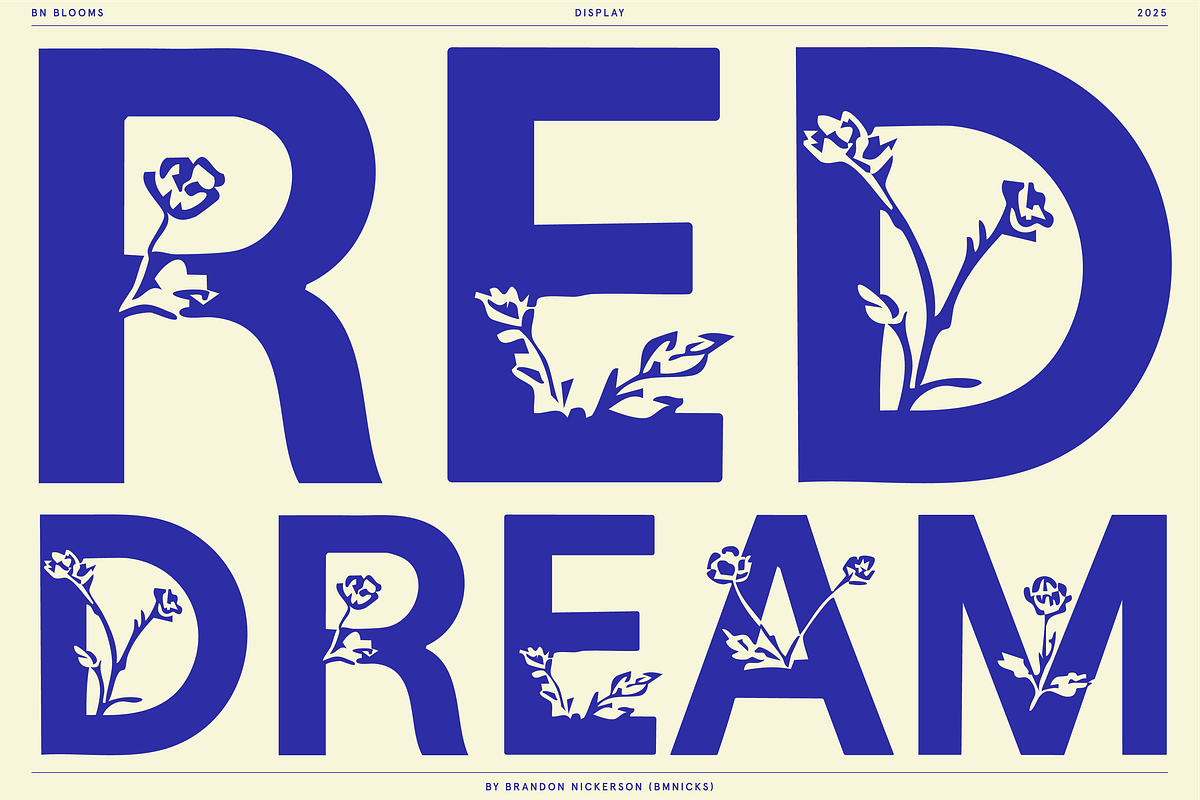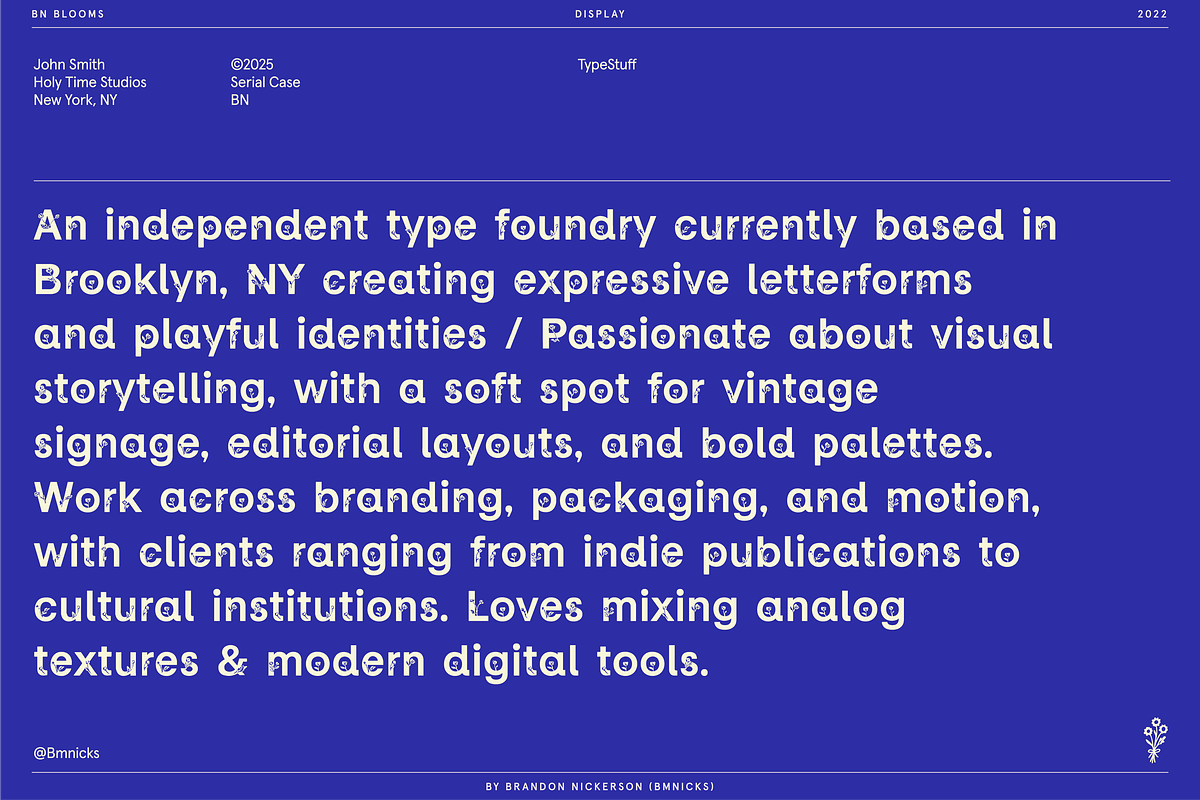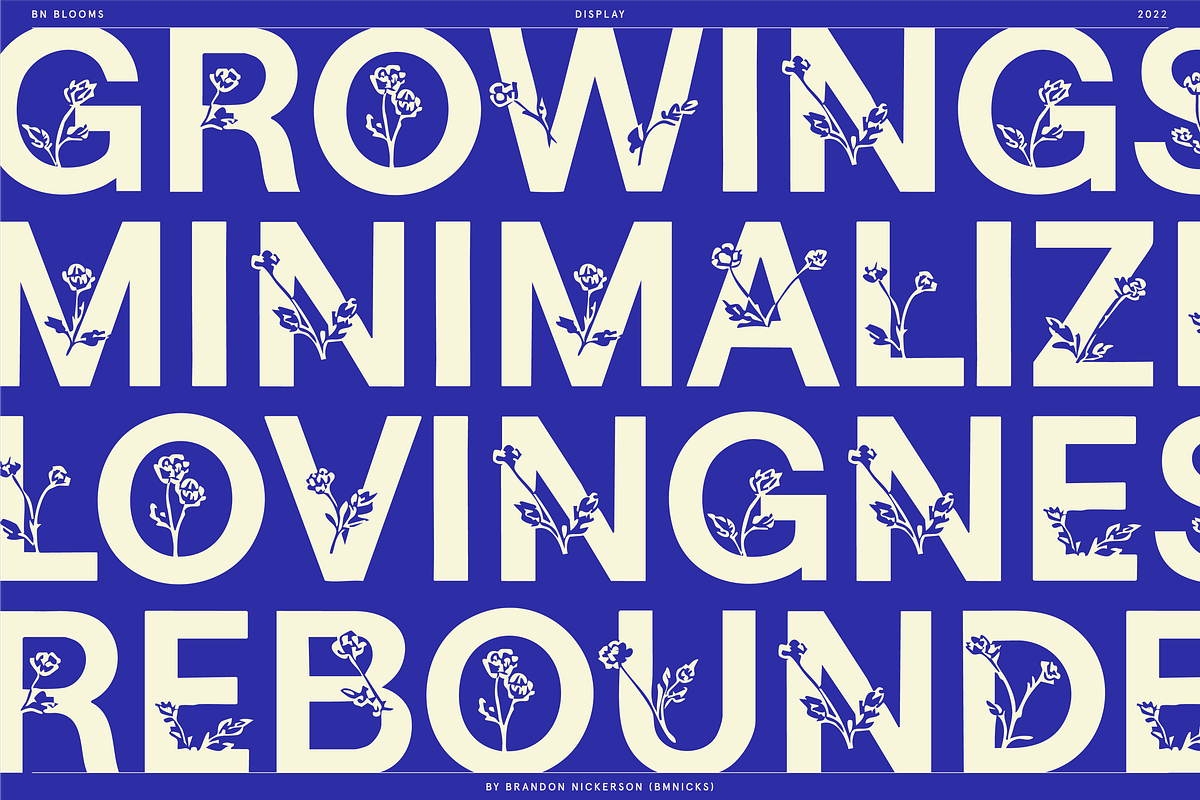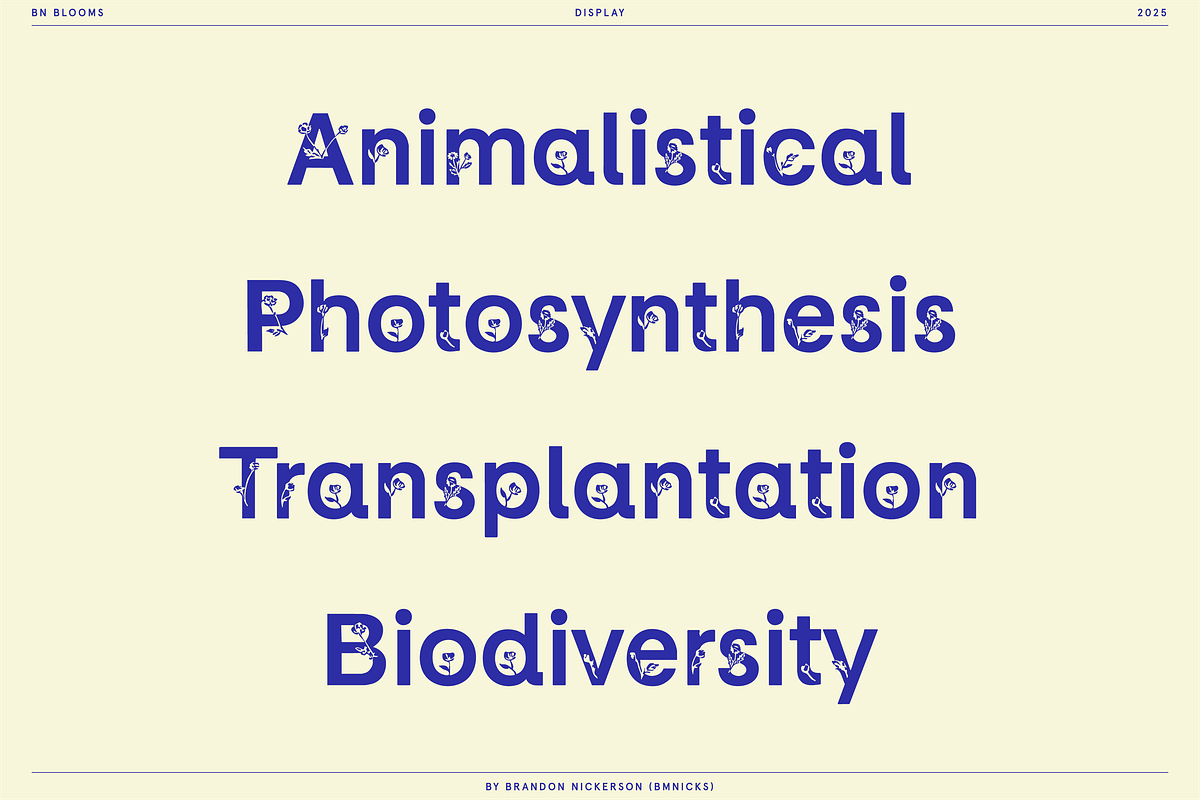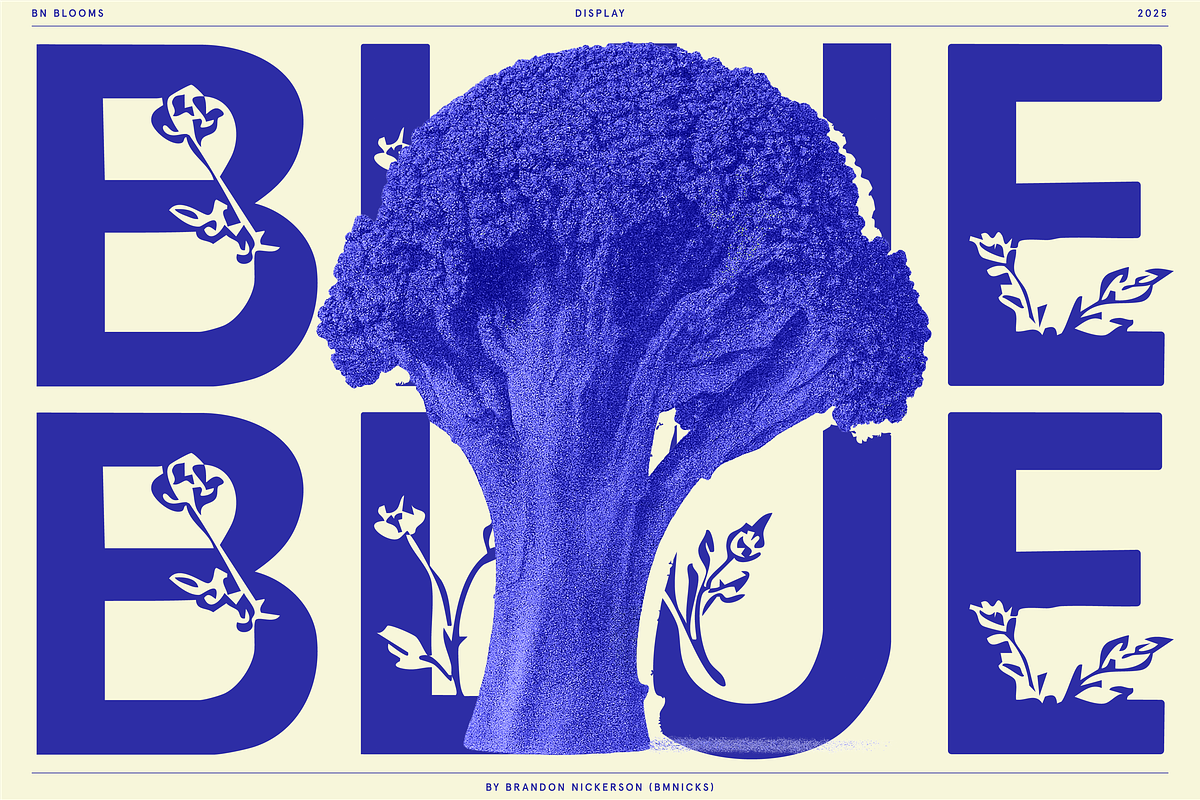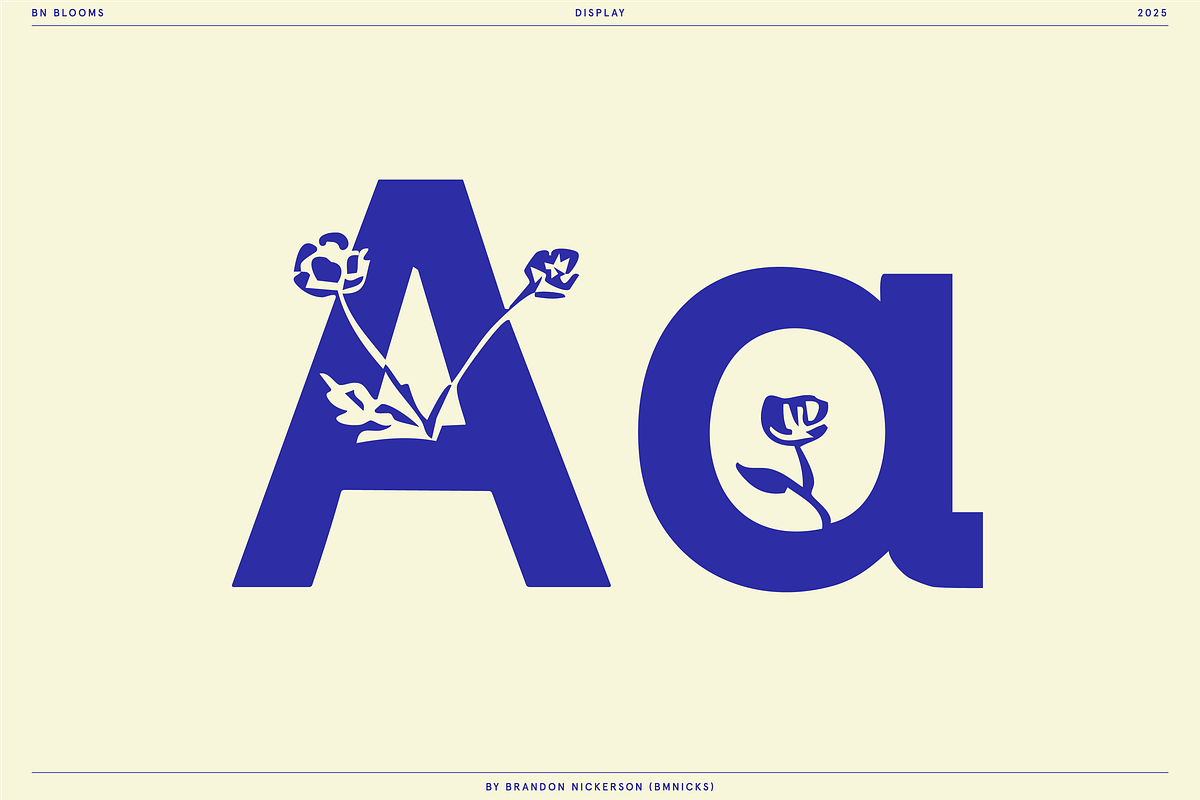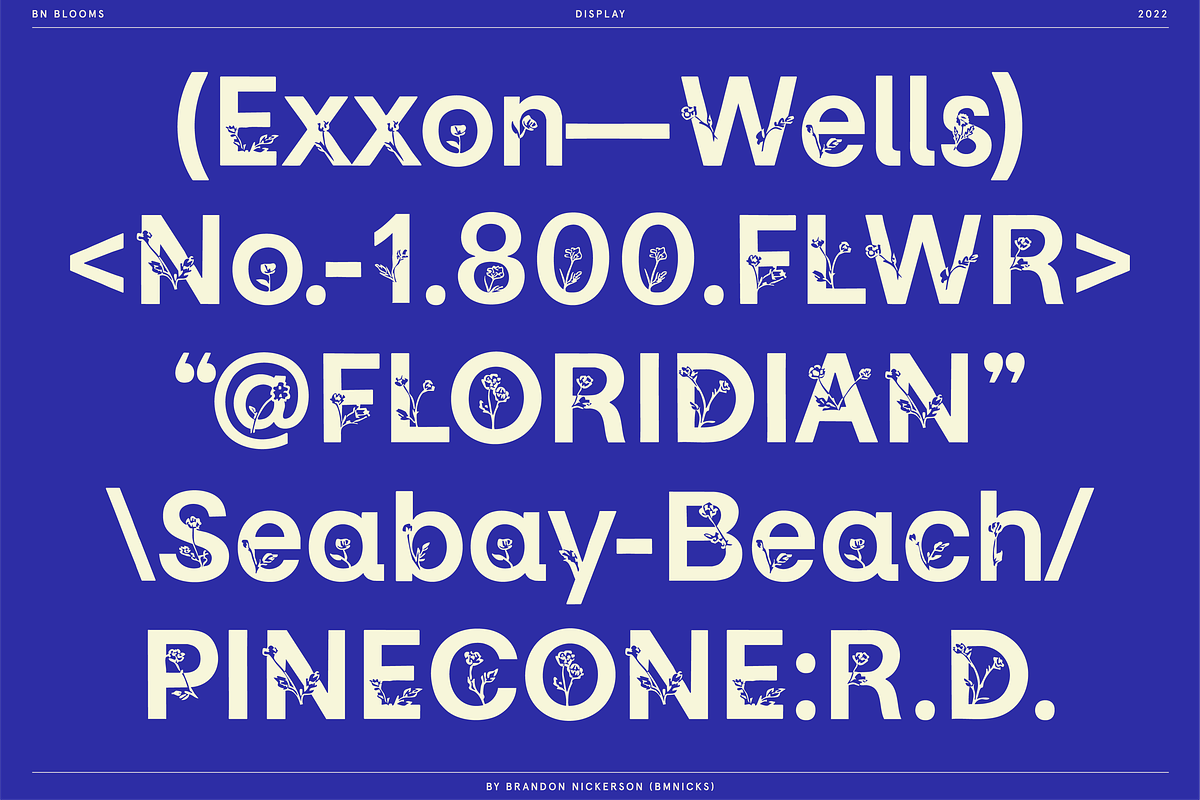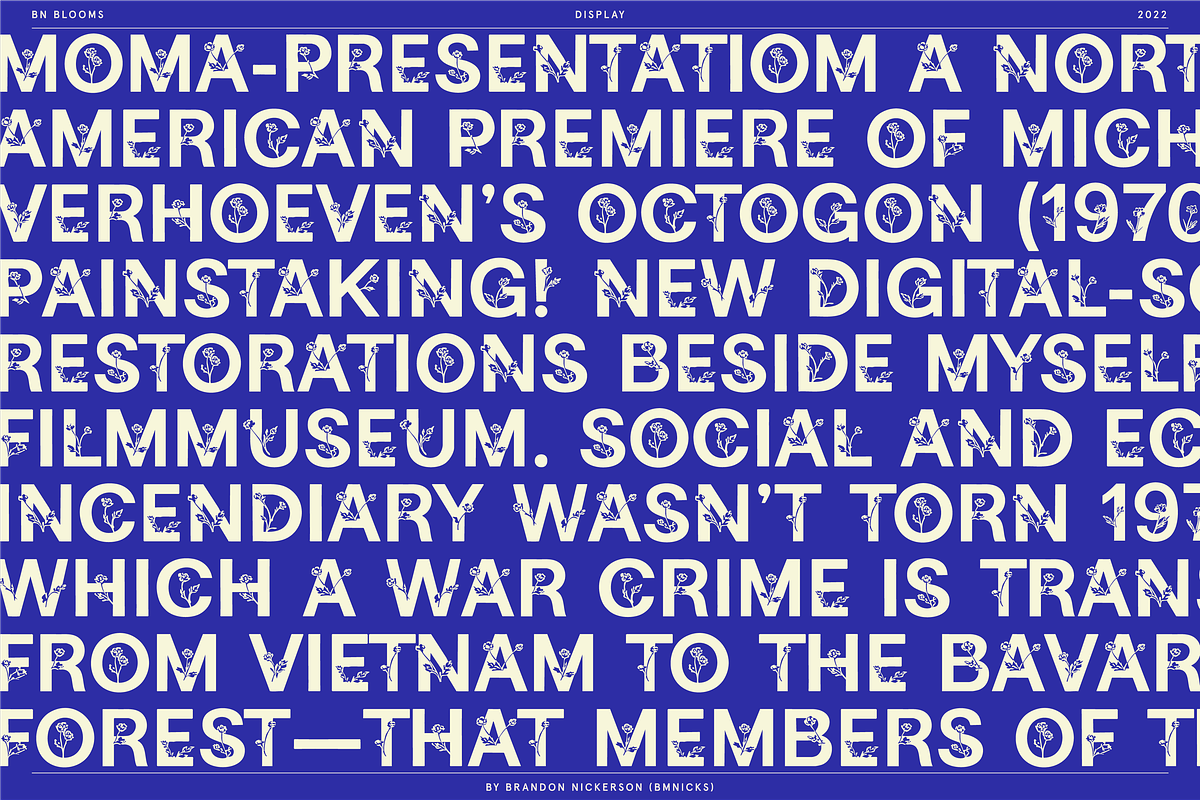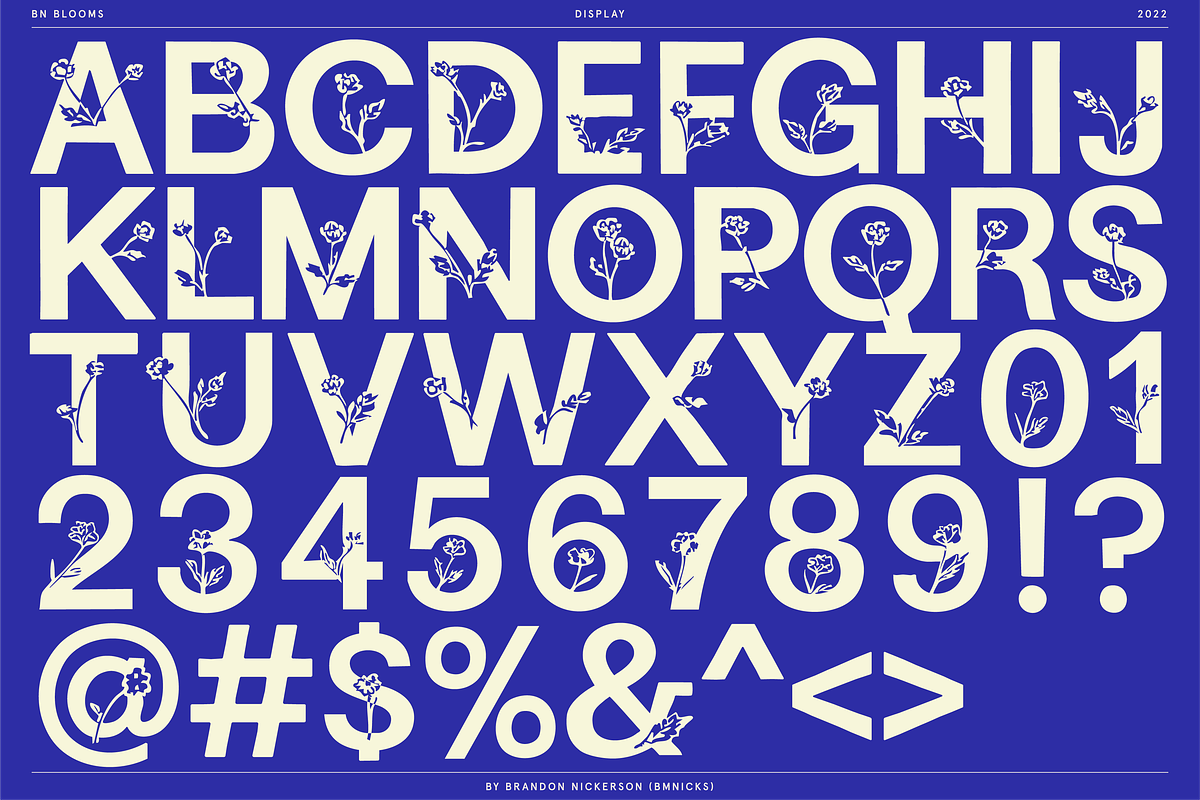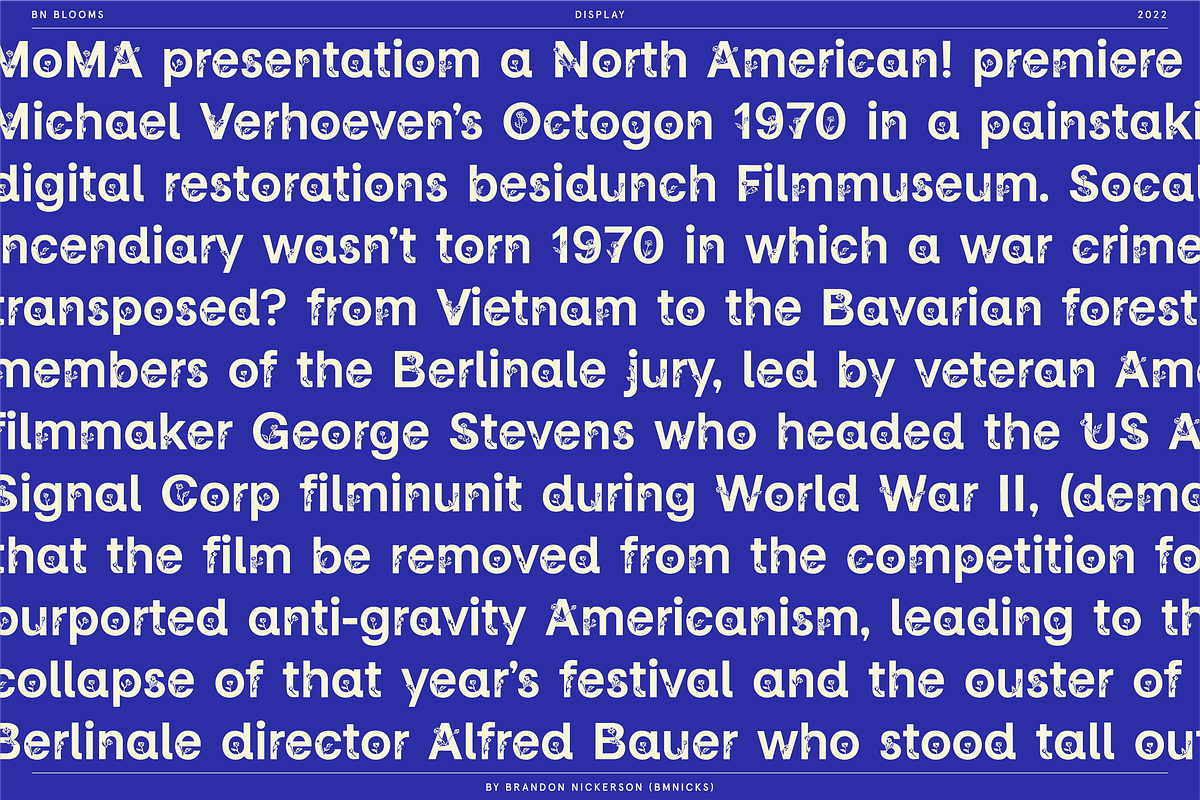
BN Blooms
BN BLOOMS
A Bold Display Font Where Geometric Strength Meets Hand-Drawn Organic Detail.
Blooms is a statement display typeface that combines strong, architectural letterforms with delicate botanical illustrations. Solid, structured shapes are softened by floral elements that grow directly from the forms, creating a look that is both powerful and poetic.
Floral & Clean Alternates
Includes alternate letterforms so you can switch between:
• Floral (illustrated) versions • Clean (non-illustrated) versions
Use florals for expressive headlines and branding moments. Use clean alternates for a more minimal approach — or mix both for dynamic layouts.
Ideal For
• Branding • Packaging • Editorial headlines • Posters • Social graphics • Event design